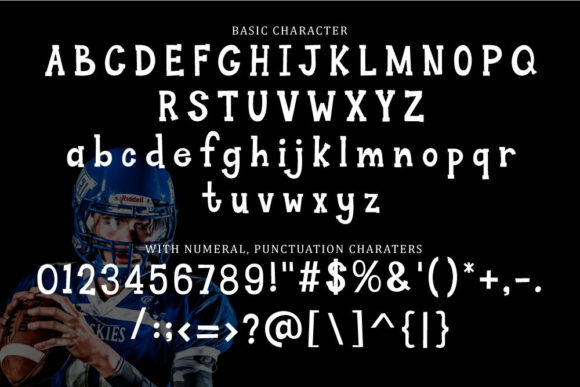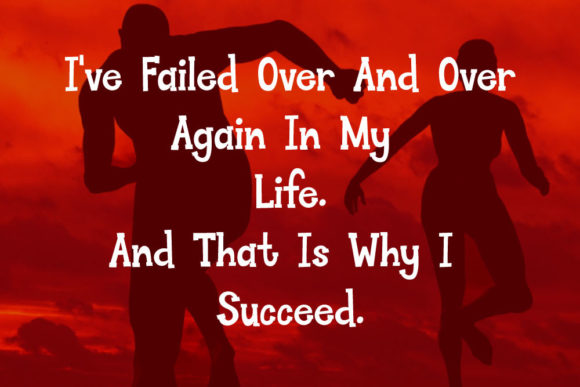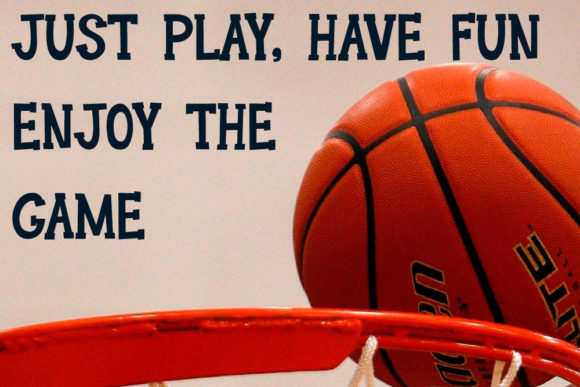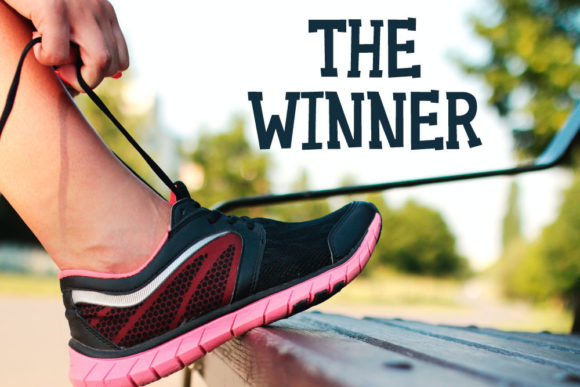
Get Ready to Level Up Your Designs with Funny Sports Font
Have you ever been brainstorming ideas for a project, staring at a blank page, and suddenly, inspiration strikes? It’s like a lightbulb moment – everything falls into place, and you can’t wait to get creative. That’s exactly what happened when we discovered Funny Sports Font, a casual and adaptable slab serif font that’s perfect for designs related to speed, athletics, or strength.
Developed to bring a touch of fun and playfulness to your designs, Funny Sports Font is more than just a font – it’s a tool to unleash your imagination. With its versatility and adaptability, the only limit is your creativity. Whether you’re designing a sports-themed website, creating a fitness campaign, or simply need a bold font for your next project, Funny Sports Font is the perfect companion.
- Unique Characteristics: Funny Sports Font features a playful and humorous design, with exaggerated letterforms and creative typography that adds a touch of whimsy to any text.
- Font Weight: Funny Sports Font is available in multiple weights, including Light, Regular, Bold, and Black, allowing for a range of tonal expressions and design options.
Designer Review: Funny Sports Font
When I first laid eyes on Funny Sports Font, I couldn’t help but chuckle at its playful design. ✨ The font’s bold and quirky style immediately caught my attention, making it perfect for sports-related projects where a dash of humor is needed.
- ✨ Unique style: Funny Sports Font stands out from the crowd with its eccentric design, making it ideal for sports teams or brands that want to showcase their fun side.
- ✨ Customizability: The font comes in a variety of weights and styles, allowing designers to mix and match to create a look that’s all their own.
- ⚠️ Limited legibility: While the font is fun to look at, its unique style can sometimes make it difficult to read, particularly in smaller text sizes.
Overall, Funny Sports Font is a great choice for designers who want to add a touch of humor and whimsy to their sports-related projects. While it may not be the most versatile font, its unique style and customizability make it a great option for those who want to stand out from the crowd.
For best results, use “Funny Sports Font” in designs that require a playful, energetic feel.
- Sports-themed posters and flyers.
- Event invitations and announcements.
- Social media graphics and ads.
Remember to pair “Funny Sports Font” with a clear, readable font for optimal legibility.